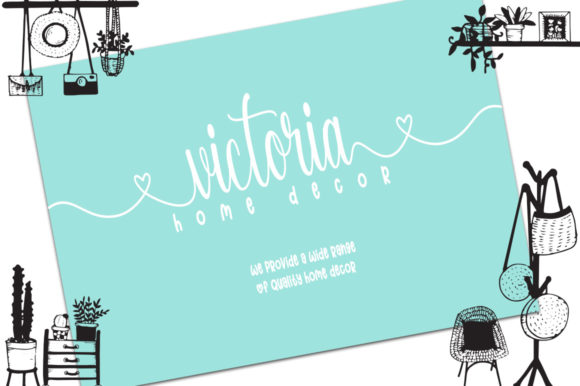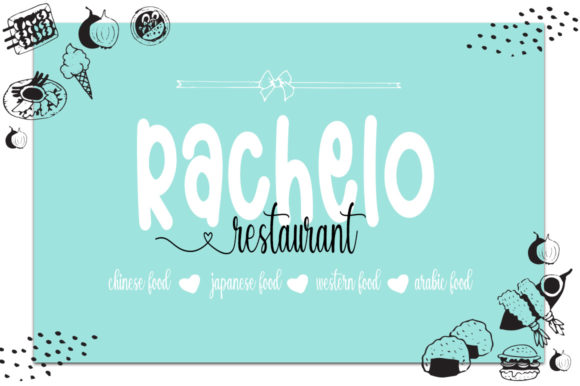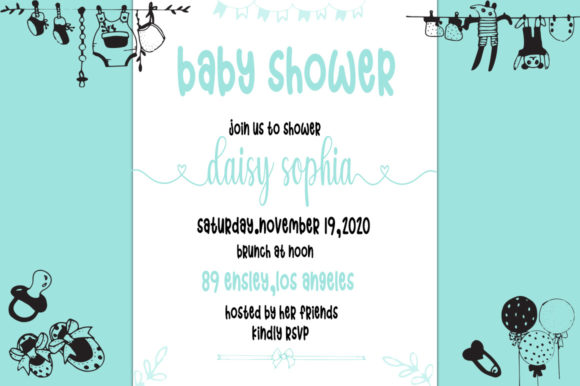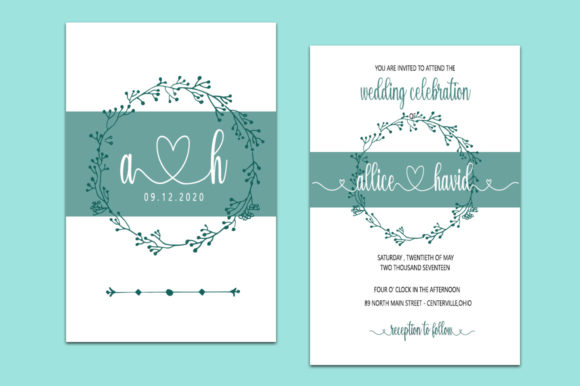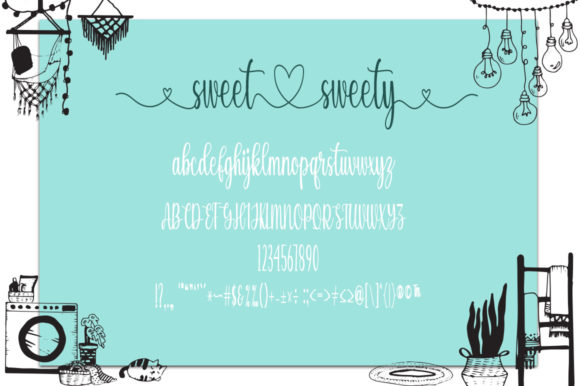
Introduction to Lovely Sweet Sweety Font
Lovely Sweet Sweety is a spectacular duo font, defined by characters that dance along the baseline.
Incredibly versatile, this font fits a wide pool of designs, elevating them to the highest levels Add it to your favorite creative ideas and notice how it makes them come alive.
Key Features of Lovely Sweet Sweety Font